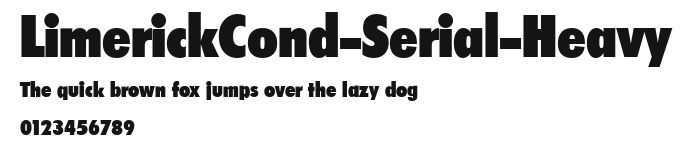
LimerickCond-Serial-Heavy.ttf is a modern, elegant sans-serif font designed for ultimate readability and visual harmony. Perfect for branding, headlines, web design, and print materials.